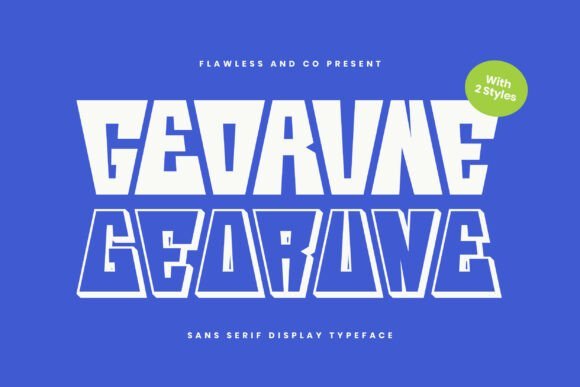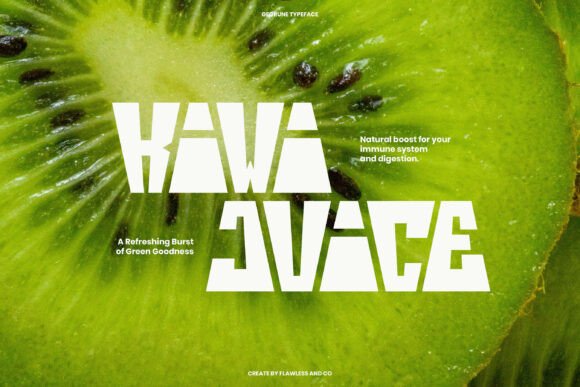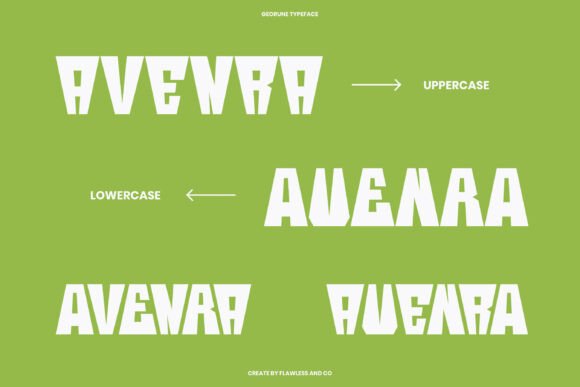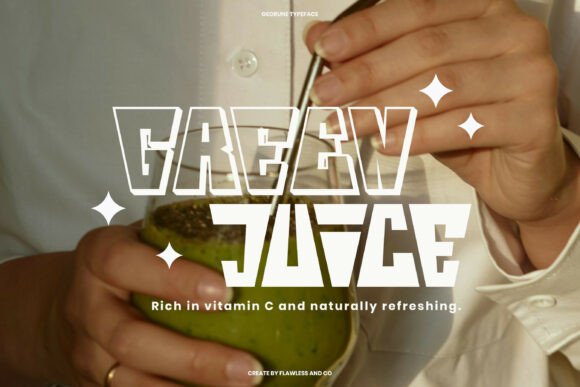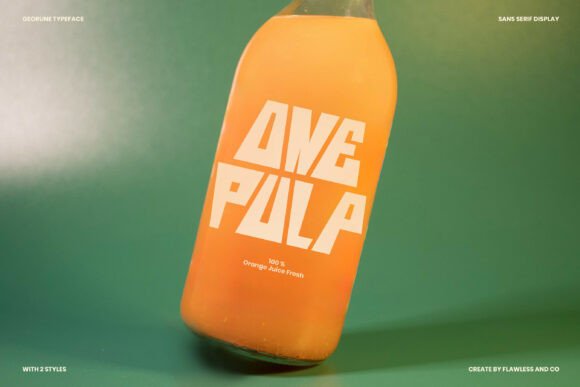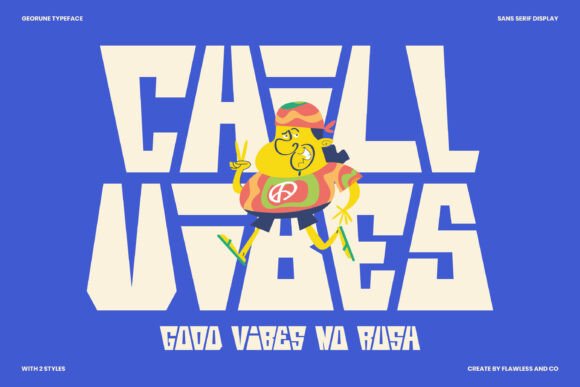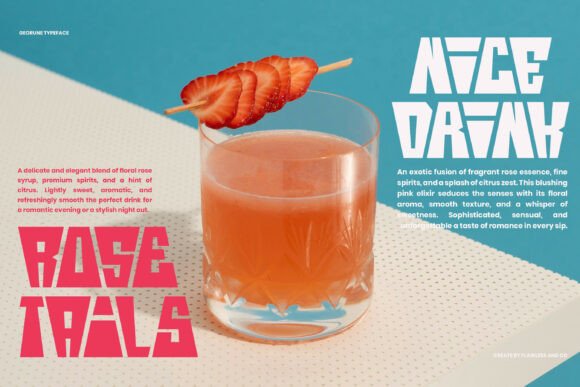
Unlocking the Power of the Georune Font
Have you ever stared at a blank design canvas, desperately seeking the perfect font to elevate your project? The frustration is real, but what if I told you that the solution lies in a powerful sans serif display typeface that’s about to revolutionize your creative process?
Meet the Georune Font, a bold and rebellious typeface that brings a futuristic edge to any design. With its sharp geometry and angular cuts, Georune is the perfect choice for headlines, logos, packaging, posters, and anything that needs attention-grabbing energy. Whether you’re a seasoned designer or just starting out, the Georune Font is an invaluable tool that will take your designs to the next level.
By incorporating the Georune Font into your design arsenal, you’ll unlock a world of creative possibilities and take your projects from meh to mesmerizing. So why settle for ordinary when you can have extraordinary with the Georune Font?
Georune Font Key Features
- Size: The font includes 6 weights (Thin, Light, Regular, Medium, Bold, and Black), offering a range of options for designers to choose from.
- Unique Characteristics: Georune Font features a unique blend of geometric and organic elements, creating a distinctive and modern aesthetic.
- Language Support: The font includes comprehensive language support for Latin-based languages, including English, Spanish, French, German, Italian, and many others.
- Kerning and Ligatures: Georune Font includes advanced kerning and ligature pairs, ensuring smooth and professional typography in a variety of settings.
Georune Font Review
I’ve had the chance to work with the Georune Font, and I have mixed feelings about it. On the one hand, it has some nice qualities that make it suitable for certain projects.
- Unique blend of digital and hand-drawn elements: Georune Font offers a distinctive aesthetic that can add a touch of personality to your designs.
- Good for titles and headings: Its bold and eye-catching appearance makes it perfect for grabbing attention in titles and headings.
- Large character set: The font includes a wide range of characters, including international glyphs, which is a plus for designers who work with diverse content.
Limitsations ⚠️
- Limited legibility at small sizes: As the font gets smaller, its unique characteristics can become hard to read, which may require additional styling or adjustments.
- May not be suitable for body text: Due to its bold and playful nature, Georune Font may not be the best choice for large blocks of body text, where readability is crucial.
Overall, Georune Font is a great addition to your design toolkit, especially for titles, headings, and other prominent elements. However, it’s essential to be aware of its limitations and use it judiciously to avoid readability issues.
Georune Font is ideal for:
- Any design project requiring a unique and elegant touch
For optimal results, use Georune Font in combination with high-contrast colors and clean design elements.
Q: What are the recommended font sizes and line heights for using the Georune Font?
For optimal readability, we recommend using font sizes between 12pt and 24pt, with line heights that are at least 120% of the font size. This will ensure that your text remains clear and legible, even at smaller sizes.